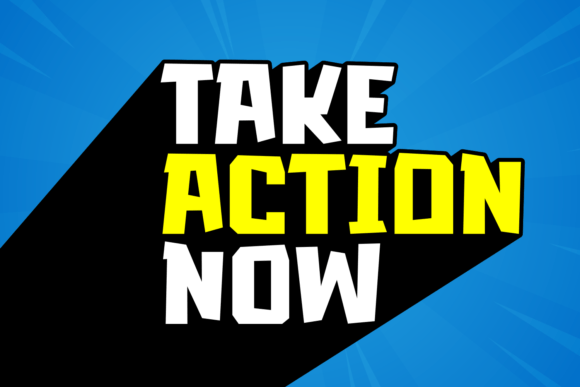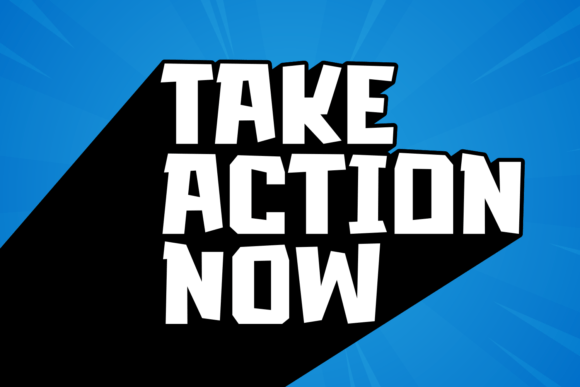
Eager for Change Font: Elevate Your Designs with a Powerful Display Font
Are you tired of using the same old fonts in your designs? Do you want to take your creative projects to the next level? Look no further than the Eager for Change font. This outstanding display font is designed to make a statement, with wide characters that exude a powerful look that’s sure to grab attention.
The Power of Eager for Change Font
Eager for Change font is not just another font – it’s a game-changer. Its unique design features wide characters that give it a bold and confident look, perfect for making a statement in any design. Whether you’re working on a logo, a poster, or a website, this font is sure to elevate your design and make it stand out from the crowd.
Why Designers Love Eager for Change Font
Designers love the Eager for Change font for its versatility and impact. Here are just a few reasons why:
- Unique Design: The Eager for Change font has a one-of-a-kind design that’s sure to set your designs apart from the rest.
- High-Impact: The wide characters and bold design make it perfect for creating eye-catching headlines and titles.
- Versatile: This font can be used in a variety of design projects, from logos and posters to websites and social media graphics.
How to Use Eager for Change Font in Your Designs
Using the Eager for Change font in your designs is easy. Here are a few tips to get you started:
- Pair it with a simple font: Pair the Eager for Change font with a simple font to create contrast and make your design stand out.
- Use it for headlines: The Eager for Change font is perfect for creating bold and eye-catching headlines.
- Experiment with colors: Try out different colors and textures to see how they interact with the font.
The Benefits of Adding Eager for Change Font to Your Library
In conclusion, the Eager for Change font is an outstanding display font that’s sure to elevate your designs and take them to the next level. With its unique design, high-impact look, and versatility, it’s the perfect addition to any design library. So why wait? Add the Eager for Change font to your library today and start creating stunning designs that demand attention.